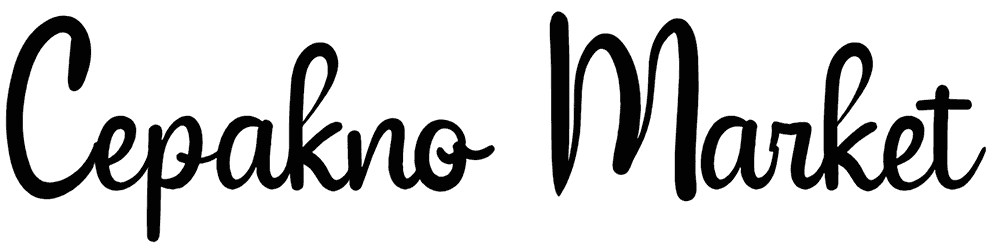
Cepakno Market Font
Picking the right font for your text layout is always advisable. Cepakno Market is a handwritten font that appears in medium characters. This case can be utilized for cosmetic products, bag shops, snack packages, and so forth. Bear in mind that this one lacks numbers and punctuation. If you found this freebie practical, make sure to come and visit our boundless library.